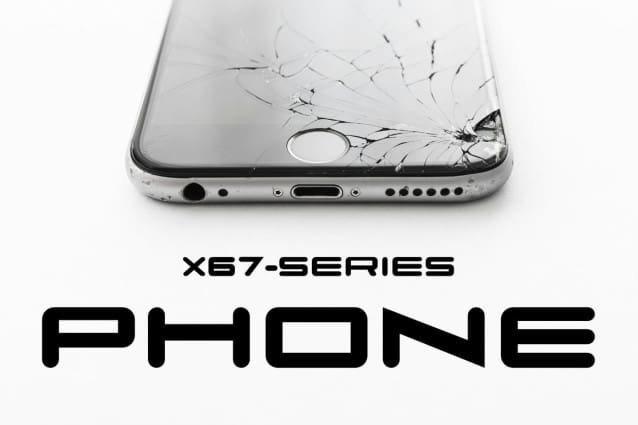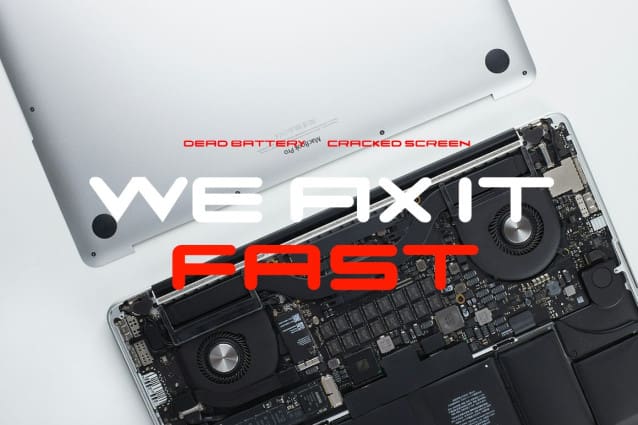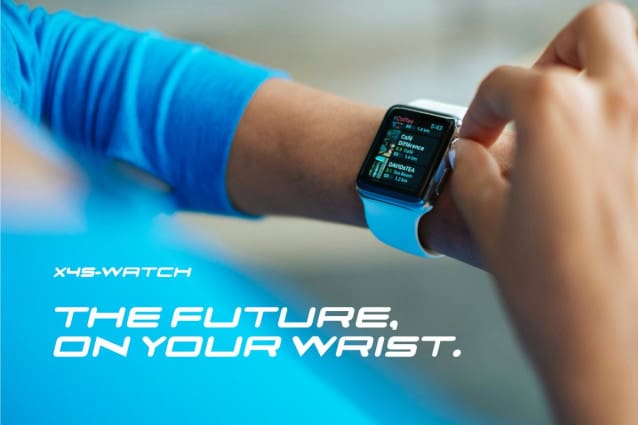
Faqro Extended Round Font
Faqro Extended Round Font is a futuristic font style with sophisticated, modern and minimalist allcaps characters. Its futuristic aesthetics bring a whole new dimension to your designs, making them stand out. Whether you’re working on a website, poster, logo, or any other project, this font adds that extra touch of innovation and sophistication.